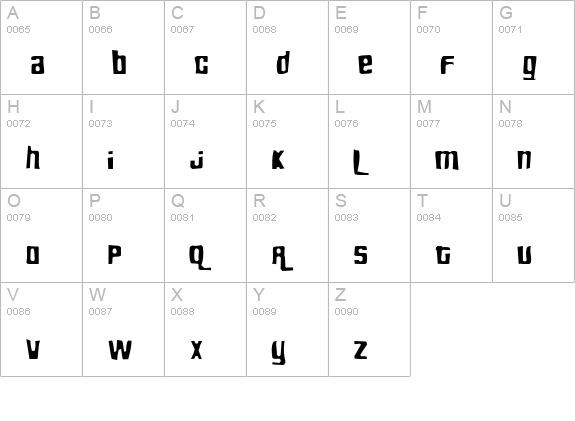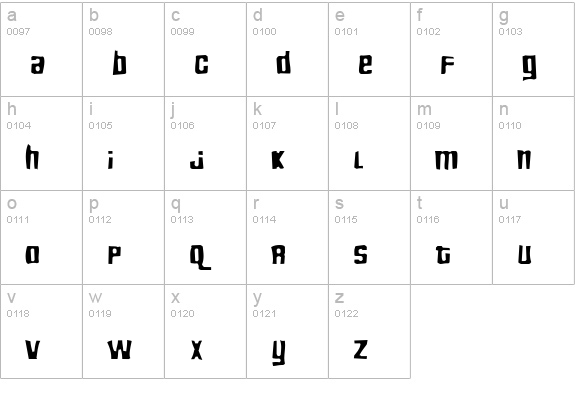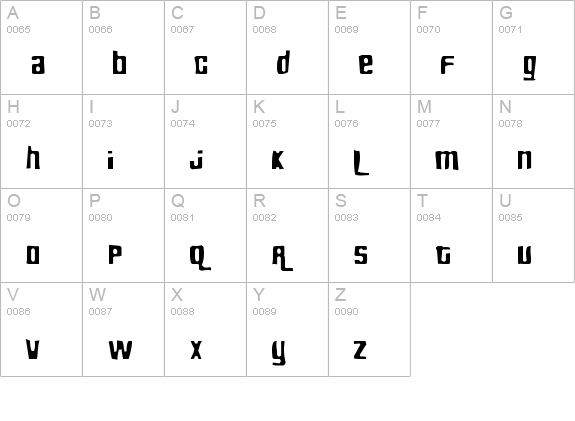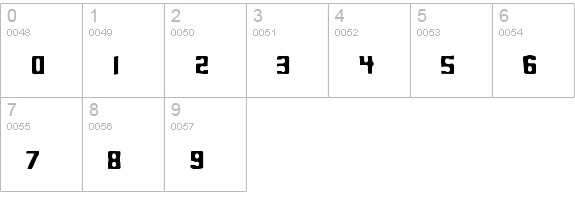
Pricedown Gaunt Font Details
Pricedown Gaunt font is a bold and stylish typeface that exudes a sense of strength and elegance. Its sharp lines and intricate details make it perfect for creating eye-catching designs that demand attention. This font is ideal for projects that require a touch of sophistication and a modern edge. What sets Pricedown Gaunt font apart is that it is available for free download at FontsMarket.com. This means that you can easily access this stunning font and incorporate it into your creative projects without any cost. Whether you're designing a poster, logo, or any other graphic element, Pricedown Gaunt font is sure to make a bold statement and leave a lasting impression. Download this font today and elevate your designs with its unique and striking aesthetic.